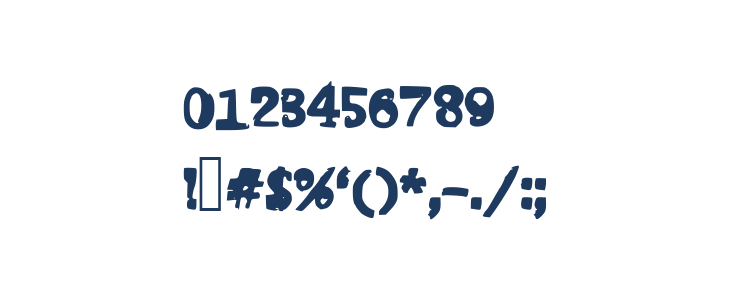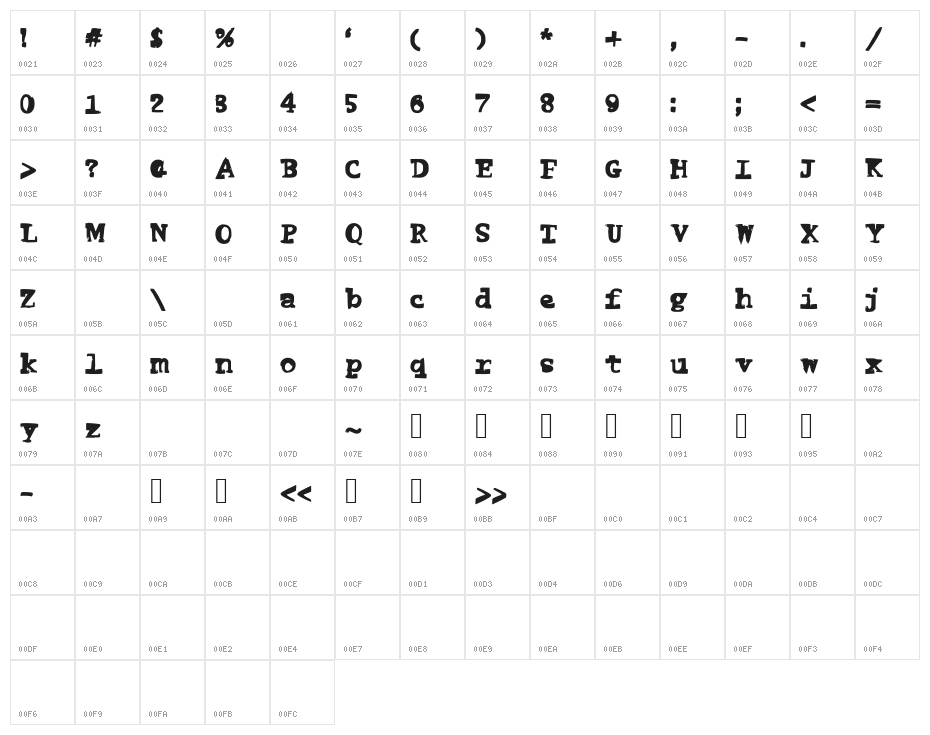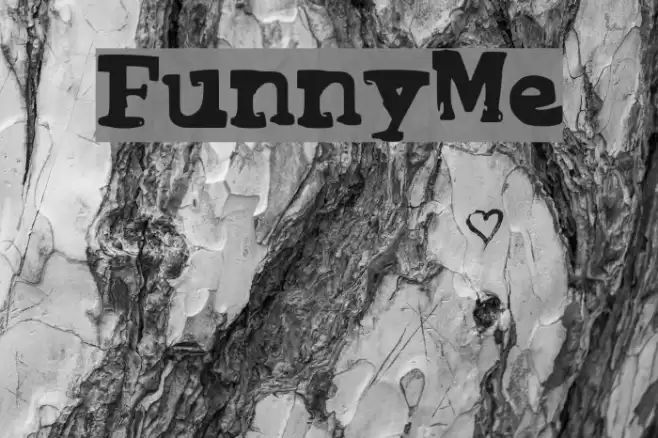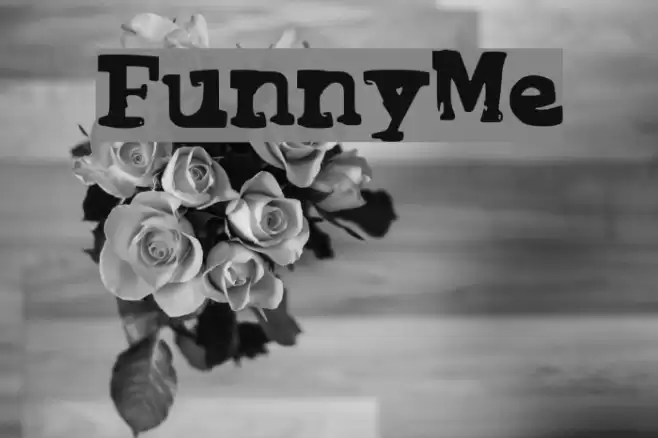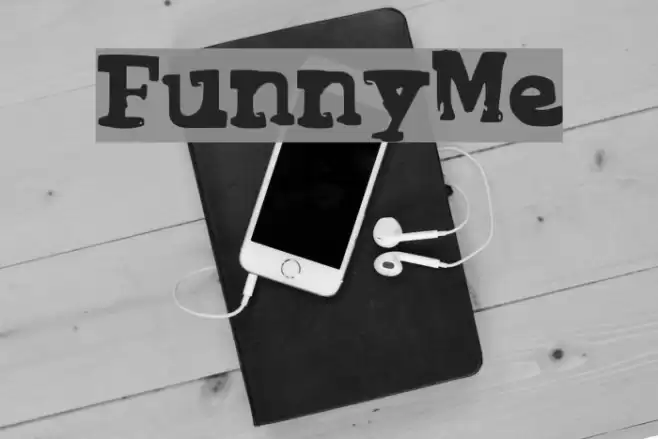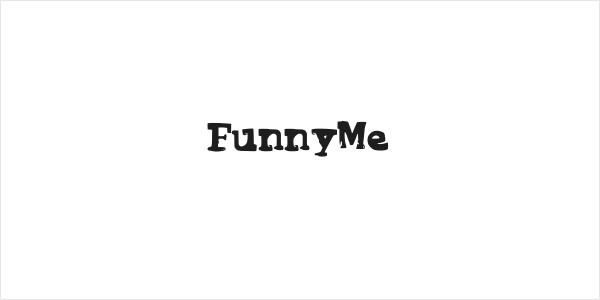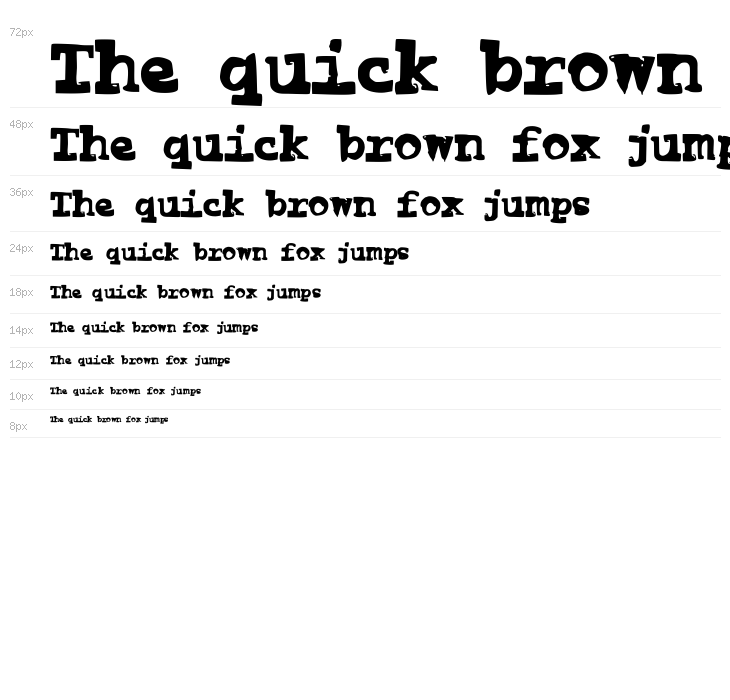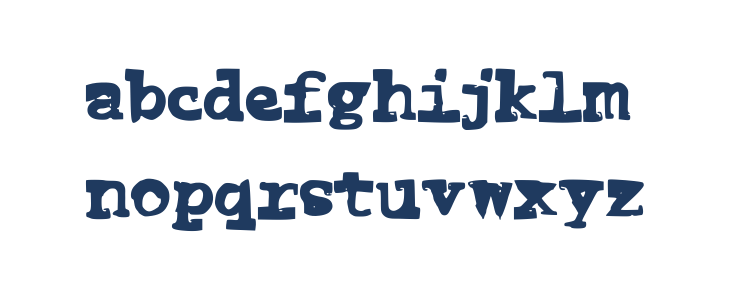
FunnyMe Font
FunnyMe Description
This font exhibits a playful and whimsical style with its bold and irregular letterforms. The characters have a hand-drawn appearance, featuring uneven strokes and varying thicknesses that contribute to its quirky and informal look. The uppercase and lowercase letters maintain a consistent style, with exaggerated serifs and a slightly distorted shape that adds to its charm. The numbers and special characters follow the same playful design, making the font suitable for creative and fun projects. Its unique style captures attention and adds a lively touch to any design.
Overall StyleWhimsical
Proposed ProjectsIdeal for children's books, comic strips, playful branding, and party invitations.